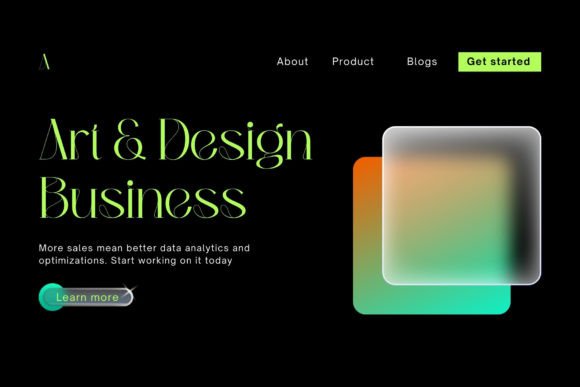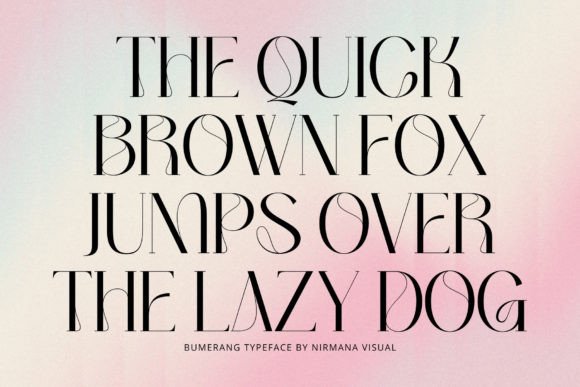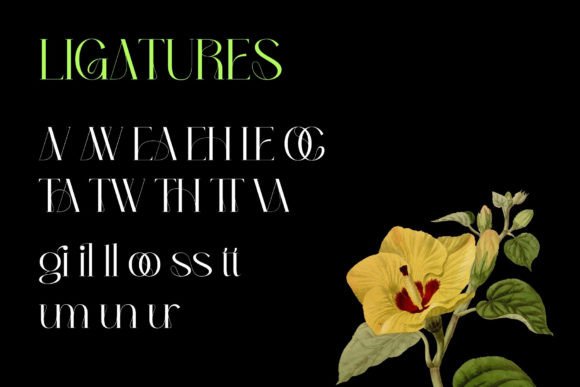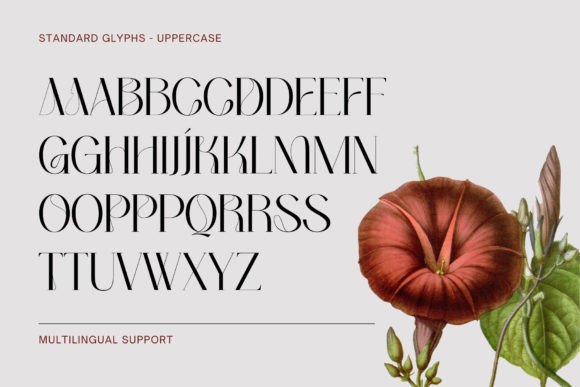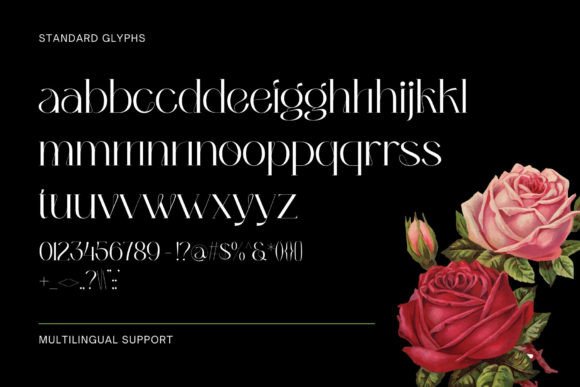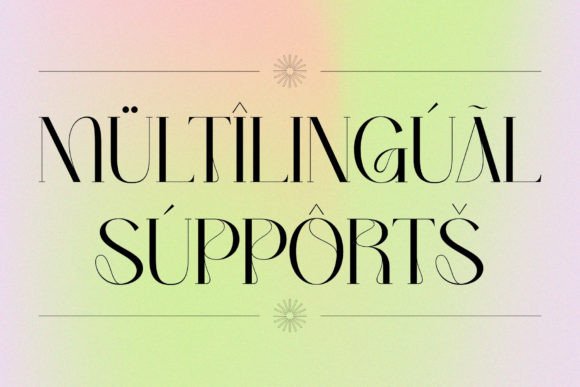
The Bumerang Font: A Stunning Art Nouveau-Inspired Serif for Creative Projects
I still remember the frustration of working on a design project, hours spent searching for the perfect font, only to end up with something that just didn’t quite fit. My client wanted a logo that exuded elegance and sophistication, but my font choices were falling flat. That’s when I stumbled upon the Bumerang font, and it was love at first sight! 💕
Inspired by the art nouveau design era, Bumerang Display serif offers a beautiful typographic harmony that’s perfect for a diversity of design projects, including logos & branding, social media posts, advertisements & product designs.
- ✨ Elegant and sophisticated design, perfect for high-end branding and luxury products
- ✅ Beautiful typographic harmony, making it easy to read and visually appealing
- 💫 Support for multiple languages and OpenType features, such as glyphs and stylistic alternates
- 🎨 Versatile and adaptable, suitable for various design projects and applications
While Bumerang is an amazing font, there are a few things to keep in mind:
- ⚠️ Some characters may not work well in smaller font sizes, so it’s best to use it for headlines or titles
- 🤔 Limited availability of certain characters or glyphs, but this can be addressed by using the font’s OpenType features
The Designer Inspiration Behind Bumerang
Bumerang was inspired by the art nouveau design era, a time of great creativity and innovation in the world of art and design. The font’s creator was inspired by the flowing lines and organic forms of art nouveau, and sought to capture the essence of this style in a modern and versatile font.
Q: What is the best use for Bumerang font?
A: Bumerang is perfect for high-end branding, luxury products, and editorial design, where elegance and sophistication are key.
Q: Is Bumerang a script font?
A: No, Bumerang is a serif font, with a elegant and refined design that’s perfect for headlines and titles.